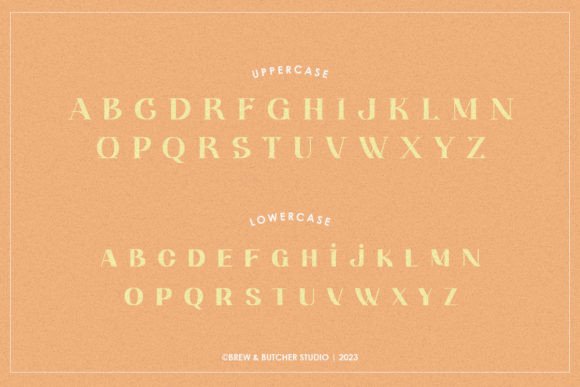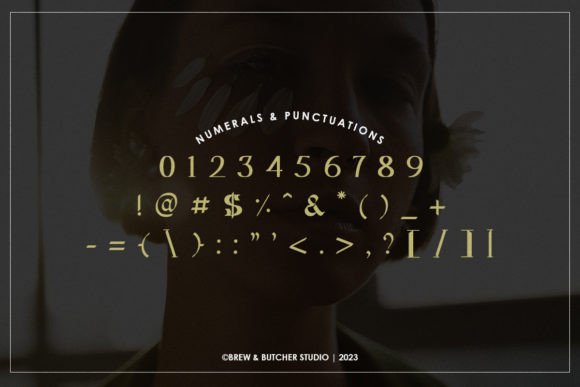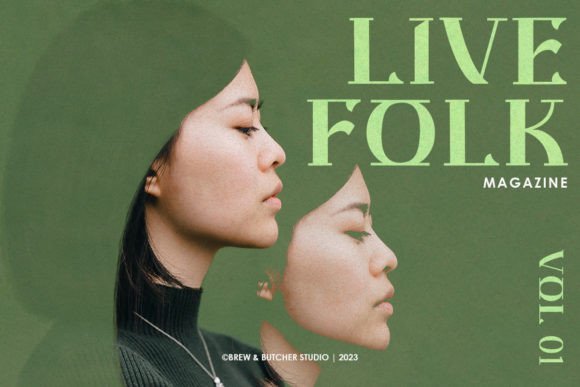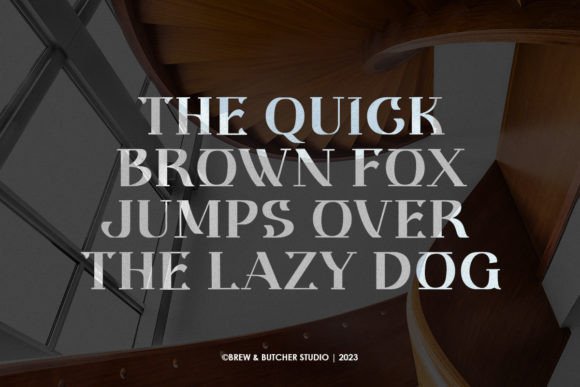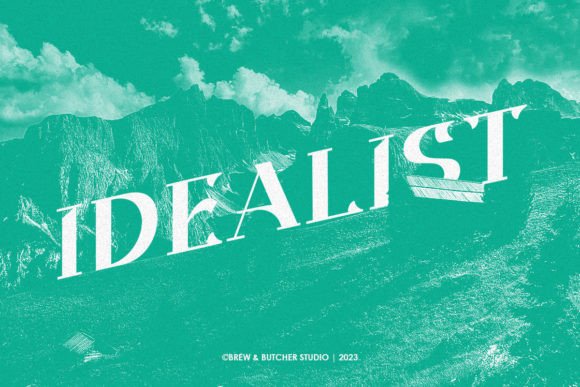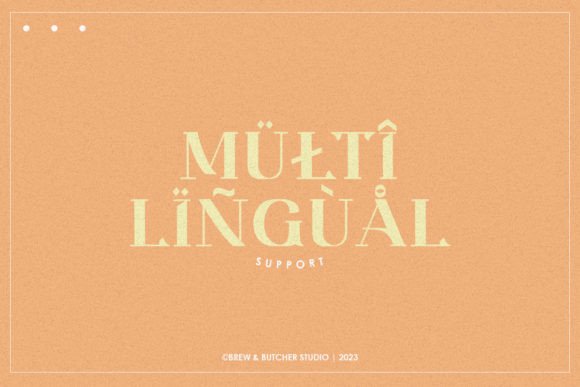
Introduction to Melbo Font
Have you ever been in the midst of a creative project, pouring your heart and soul into a design, only to be held back by the perfect font? The one that elevates your work from good to great? For designers, finding that elusive font can be a game-changer. And, trust us, we’ve found it – enter the majestic Melbo Font.
With its unique blend of classic retro style and modern cleanliness, Melbo Font exudes elegance and sophistication, making it the perfect choice for headers, headlines, and any other design element where you want to make a statement. Its firm character and distinctive curves will leave a lasting impression on your audience.
Key Features of Melbo Font
- High-quality font design, suitable for creative projects requiring a unique touch.
- Designed with a clear and legible style, ideal for use in a range of creative projects, from logos to typography.
Honest Review: Melbo Font
As a designer, I’m always on the lookout for high-quality design resources to elevate my creative projects. The Melbo Font caught my eye with its unique, modern design and transparent background, making it perfect for minimalist designs.
What works well: ✨ The font’s versatility is a major plus, suitable for a wide range of creative projects, from logos to brochures. Its clean lines and simple shapes make it easy to read and pair with other fonts. Plus, it’s available for free download, which is always a bonus.
Here are some key features that make Melbo Font stand out:
- High-quality design with transparent background
- Modern and minimalist design
- Suitable for logos, brochures, and other creative projects
⚠️ However, I do wish the font had more font weights and styles to offer. Sometimes, I need a bold or italic version to match the tone of my project. Additionally, the font might not be suitable for very large or small text sizes.
Overall, I’m impressed with the Melbo Font and would recommend it to fellow designers looking for a high-quality, free design resource for their creative projects.
Tips for Getting the Most Out of Melbo Font
To get the most out of Melbo Font, experiment with different font sizes, colors, and combinations. Use Melbo Font’s transparent background feature to create unique and eye-catching designs. You can also use Melbo Font in conjunction with other design resources to create a cohesive and professional look.
Melbo Font is ideal for use in creative projects such as logos, graphics, presentations, and documents. Its high quality and transparent background make it a versatile design resource that can be used across various platforms and industries.
Can I use the Melbo Font with a transparent background in my design?
Yes, the Melbo Font is designed to be used with a transparent background, allowing you to easily combine it with other design elements and backgrounds.
Is the Melbo Font a high-quality font suitable for professional use?
Yes, the Melbo Font is a high-quality font designed to meet the needs of professional designers. It features a clean and modern design, making it an excellent choice for a wide range of design projects.